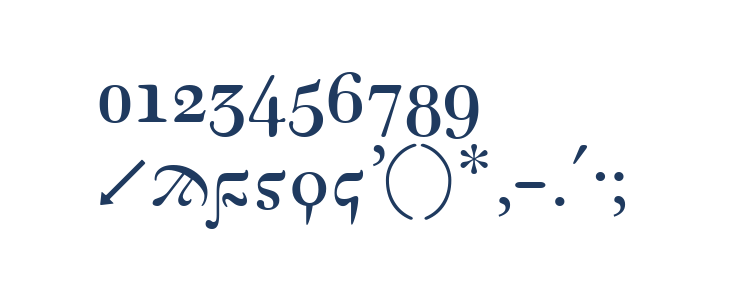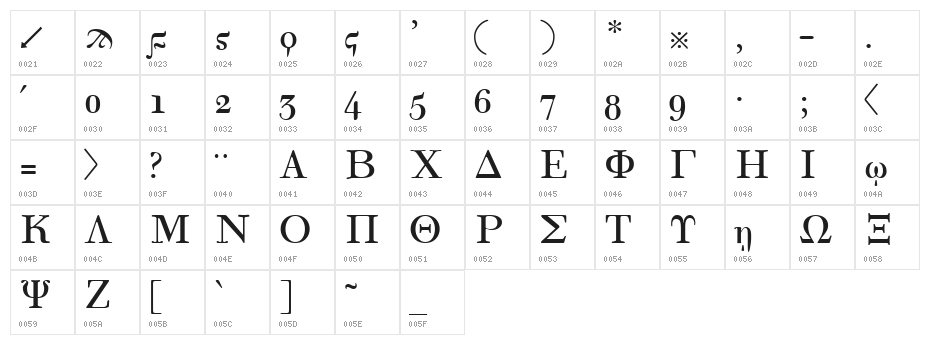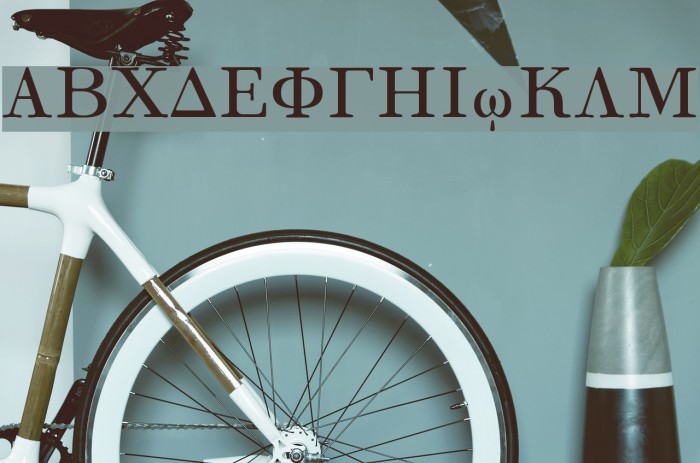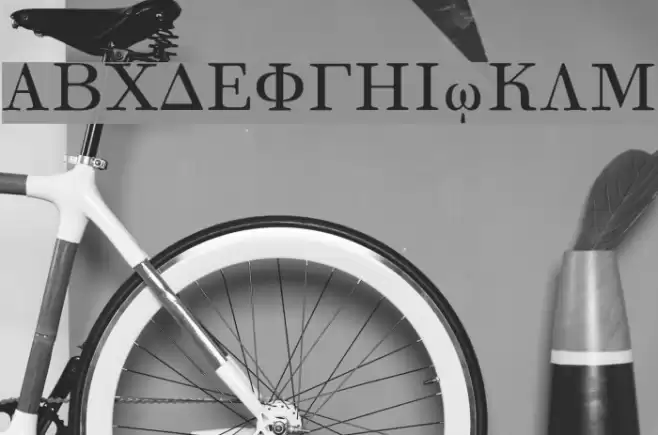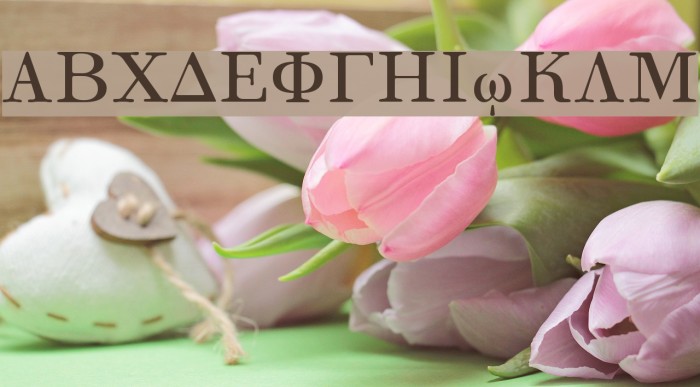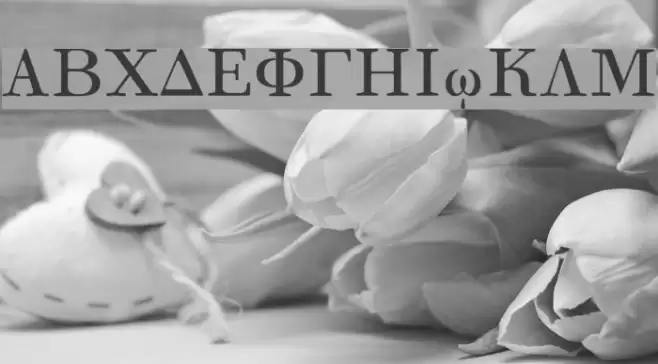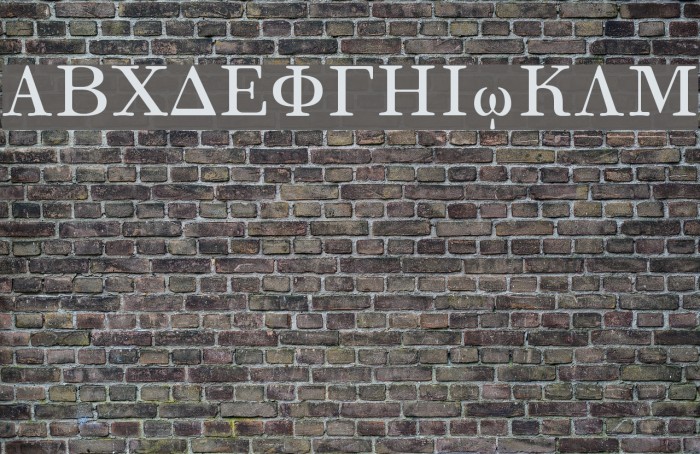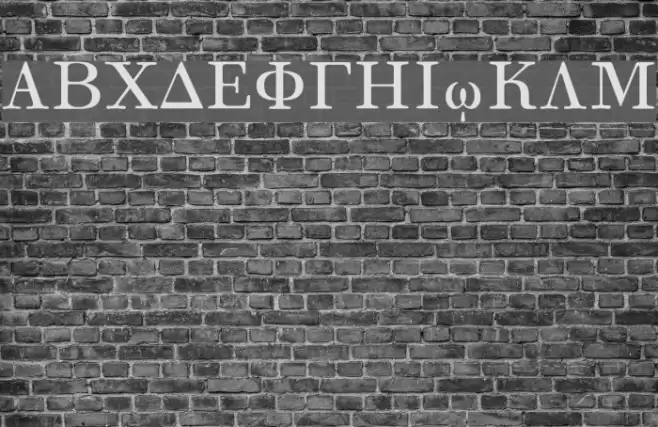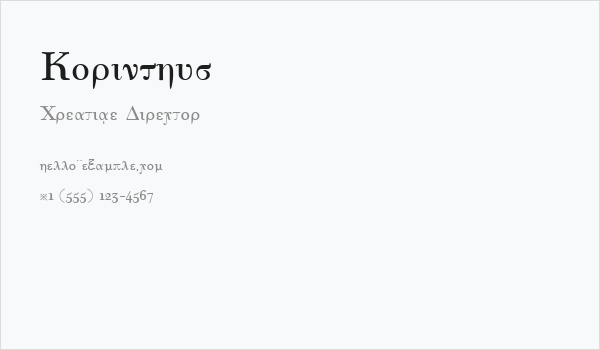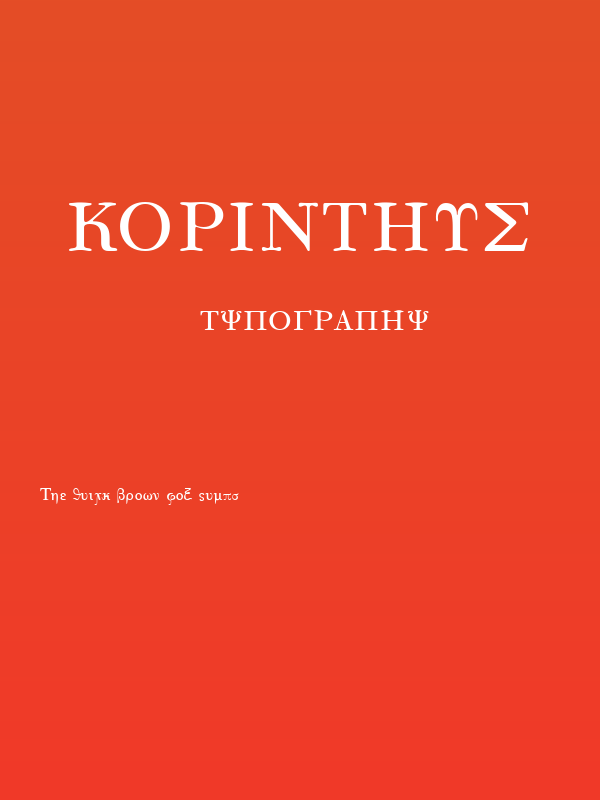
Korinthus Font
Korinthus Description
This font features a classic serif style with a distinct Greek influence, characterized by its elegant and traditional letterforms. The uppercase letters exhibit strong, angular serifs, while the lowercase letters maintain a more fluid and rounded appearance. The numerals are consistent with the overall style, offering a harmonious blend of curves and straight lines. Special characters are thoughtfully designed to match the aesthetic, providing a cohesive look across all glyphs. The font's sophisticated and timeless design makes it suitable for projects that require a touch of classical elegance.
| Proposed Projects | Ideal for academic publications, historical documents, formal invitations, and branding that requires a classical touch. |